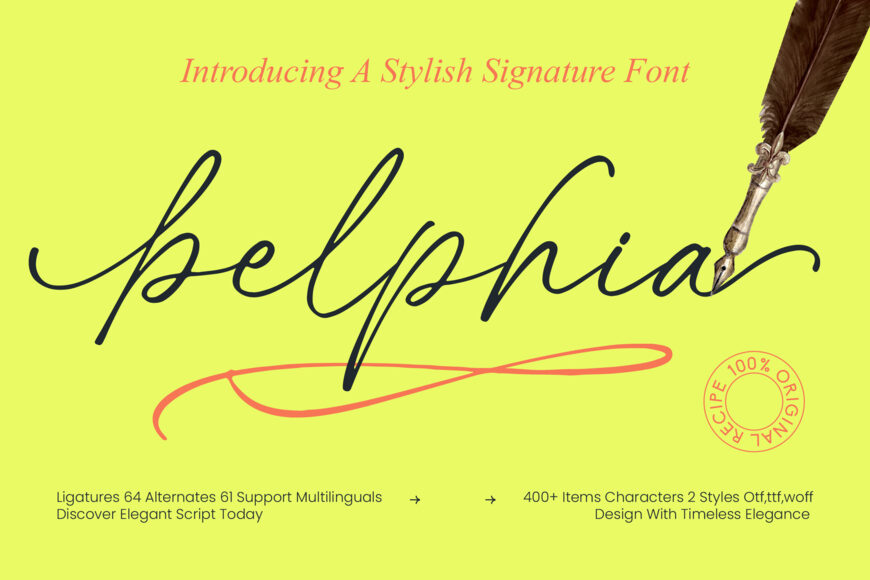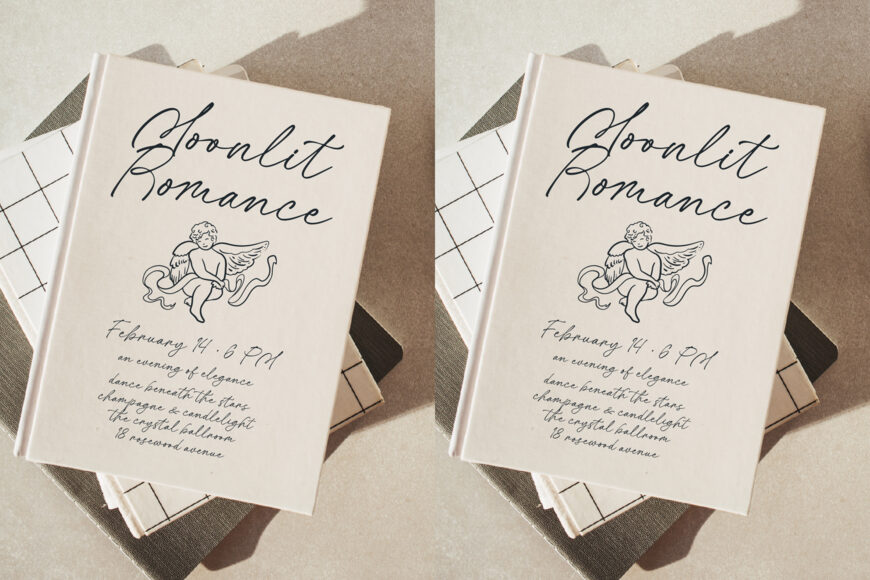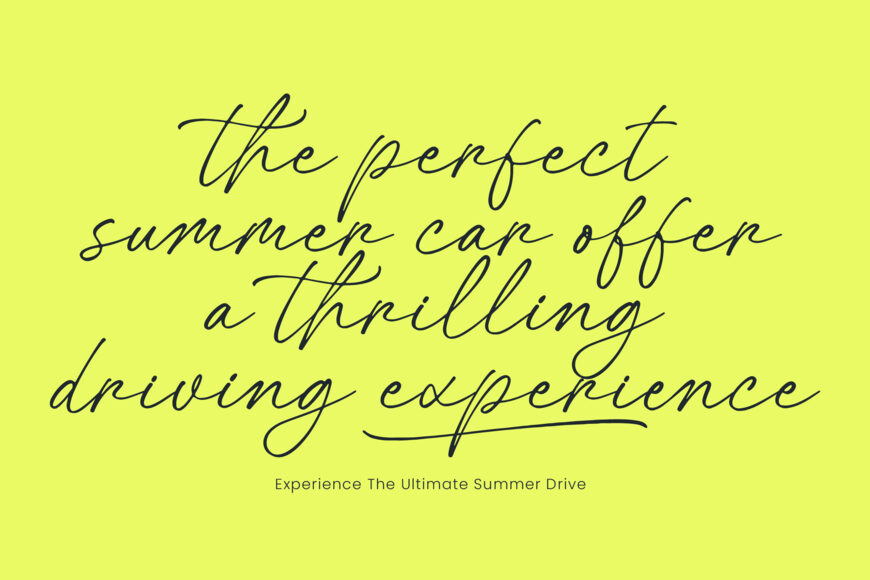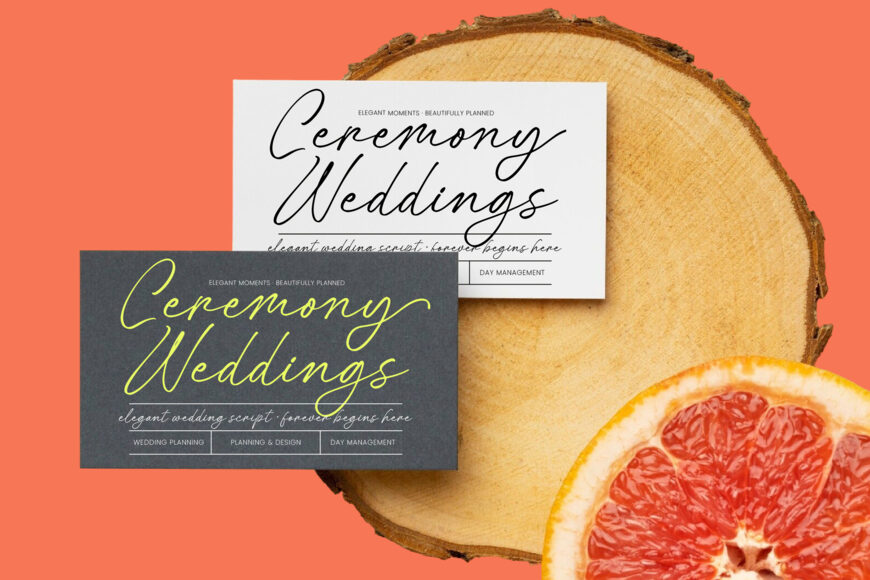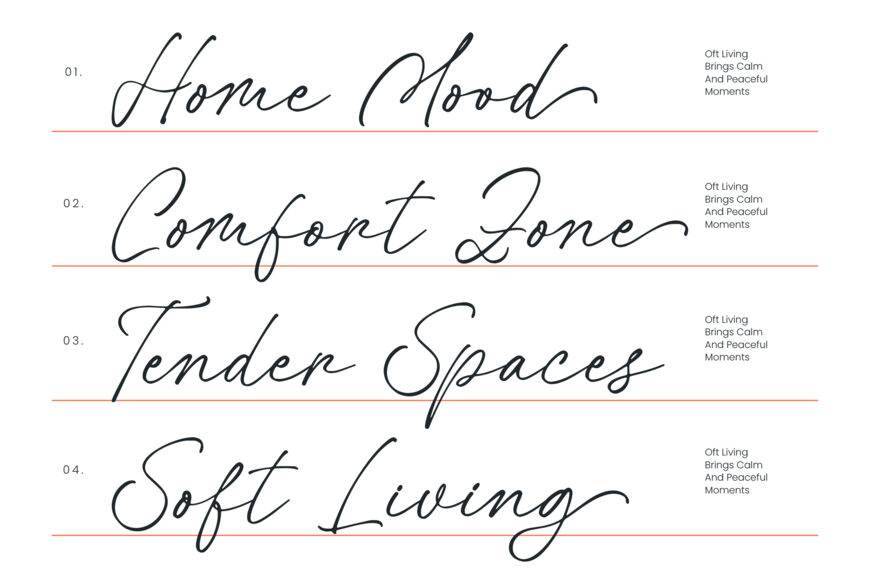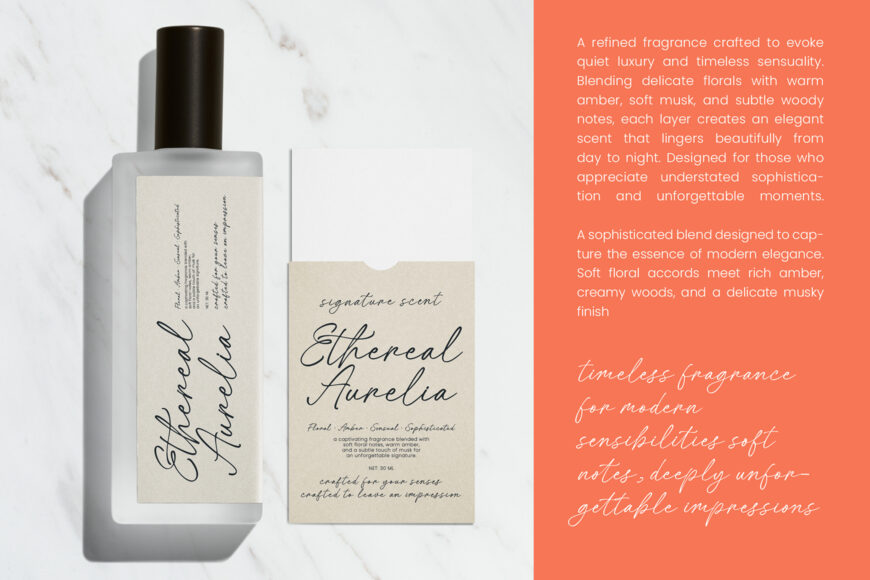
Elevate your projects with a sophisticated font that combines elegance and luxury. This monoline script has a personal, handcrafted feel with rhythmic flow and refined strokes.
With over 400 characters, 64 ligatures, and 61 alternates, it offers dynamic letter pairings for a unique look. Suitable for global projects, it supports multiple languages and is available in various formats, making it perfect for designers seeking a polished, artistic aesthetic.